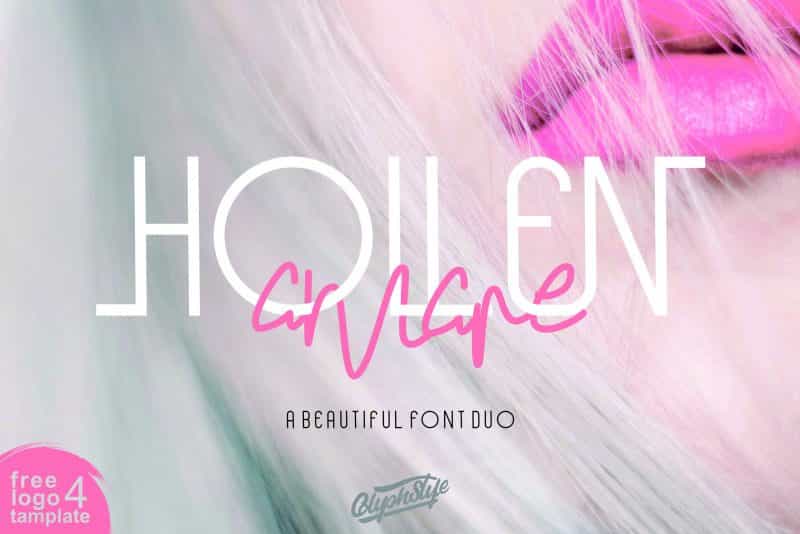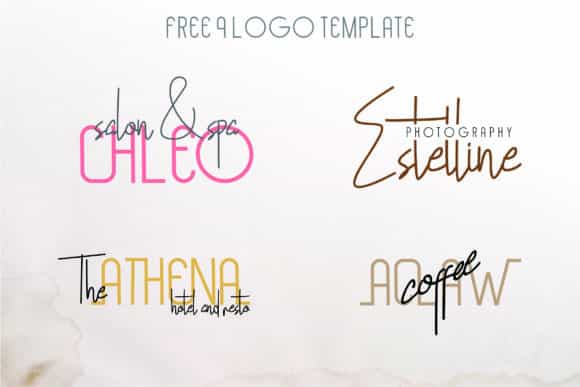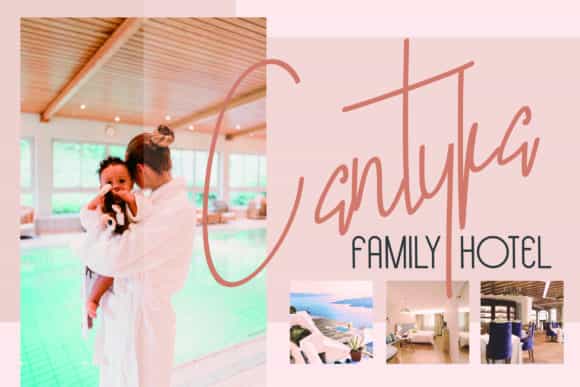
Discover Hollen Amare Font Duo, part of the Sans Serif Handwritten Display collection—a versatile and unique font perfect for adding a personal touch to your projects. Download it for free and enjoy crafting designs with style, from invitations to social media posts. This font is available exclusively for personal use, giving you the freedom to create without limits. Unlock your creativity with Hollen Amare Font Duo today!
The Hollen amare font duo is a pair of elegant fonts. is made up of the Hollen Amare Regular and the Hollen. .. these two font combinations are the perfect ones for branding projects.